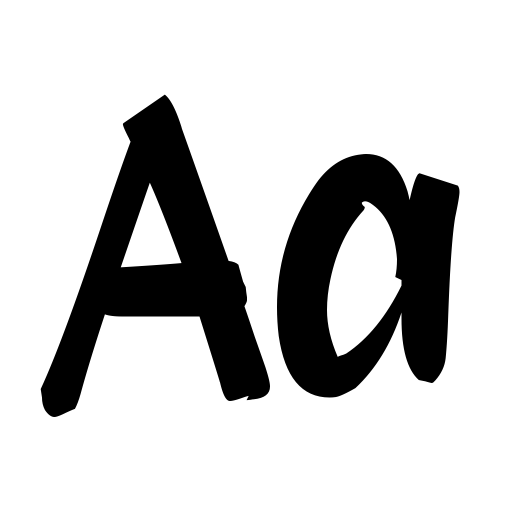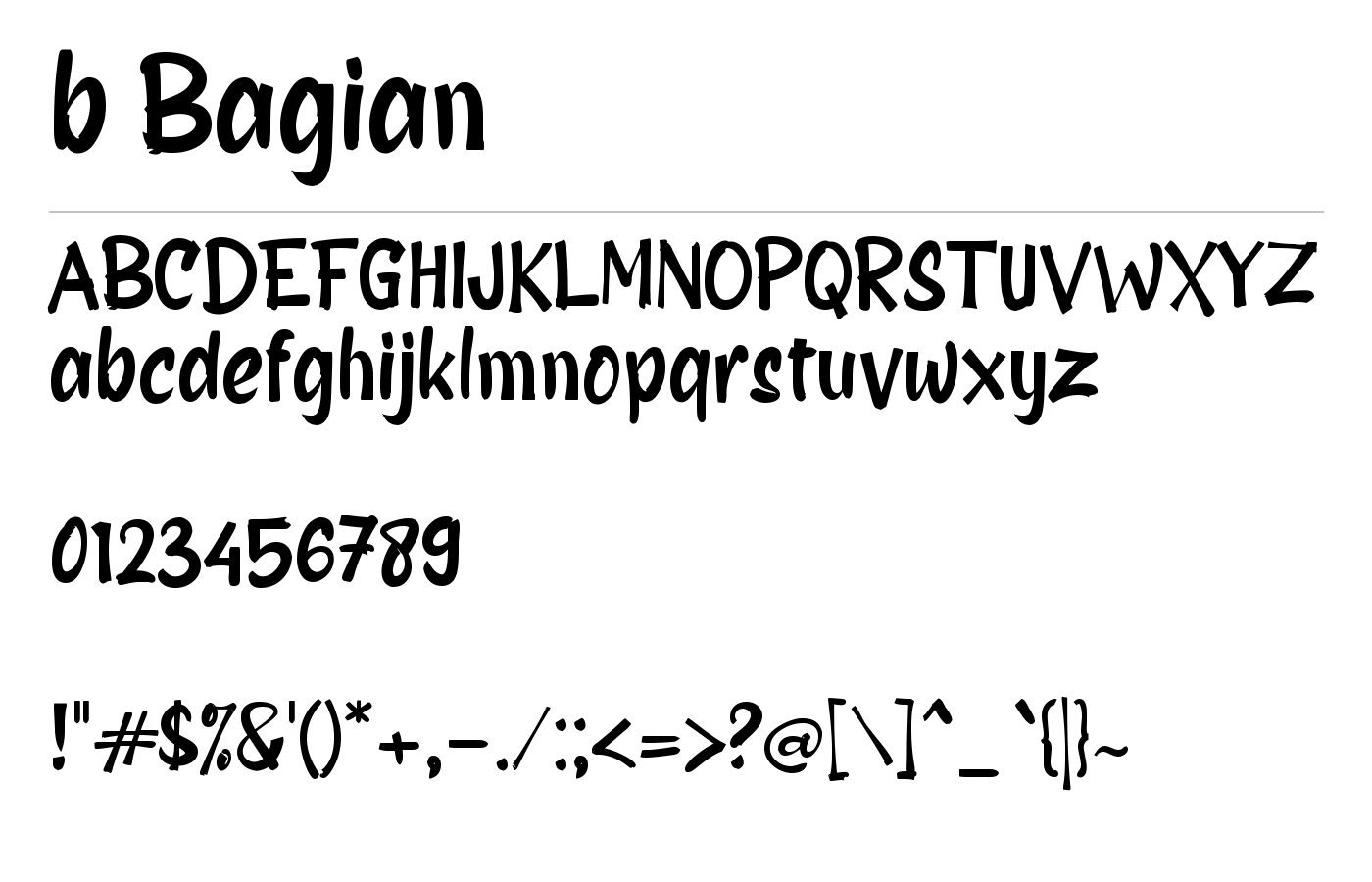
b Bagian is a playful, hand-drawn sans serif font with a casual and slightly quirky style. Its irregular stroke widths and irregular letter shapes give it a friendly, informal feel, making it ideal for creative projects, children’s books, or any design needing a fun and approachable personality. This font works best in headlines, packaging, or branding that seeks to communicate warmth and individuality.
b Bagian Font